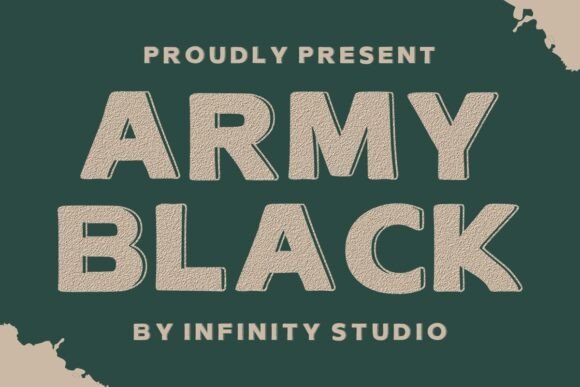
The Perfect Font for a Bold Statement: Army Black Font
Imagine you’re sitting in a crowded stadium, surrounded by cheering fans and the energy of the game is palpable. Suddenly, a giant screen behind the field flickers to life, displaying a bold, eye-catching headline that screams “IT’S GAME TIME!” – that’s the kind of impact you can create with the Army Black Font.
Army Black Font is a powerful display font that’s designed to make a statement. With its dynamic effect and unique charm, it’s perfect for anything from sporting events to Army posters, logos, and monogrammed designs. As a designer, you’re constantly on the lookout for the perfect font to elevate your projects – and Army Black Font is a valuable addition to your toolkit.
Army Black Font Key Features
- Font Family: Army Black is a sans-serif font family designed for military use.
- Unique Characteristics: Features a distinctive, rugged aesthetic with strong lines and geometric shapes, making it ideal for military and industrial applications.
- Legibility: Designed for clear readability in a variety of environments, including low-light conditions.
Army Black Font Review
Overall, I’d say that the Army Black Font is a decent choice for those who want a bold, edgy font for their design projects. Here are some pros and cons I’ve observed.
- Highly legible even at smaller font sizes
- Great for headlines and titles due to its dramatic appearance
- Works well in digital designs such as social media graphics and presentations
- Has a strong, consistent stroke width which makes it easy to read
- May be too bold for body text, making it difficult to read in large blocks of text
- Not ideal for print materials where a more subtle font is preferred
- Lacks personality and uniqueness compared to other bold fonts
The Army Black Font is a solid choice for designers who want a bold, attention-grabbing font for their projects. However, it may not be the best option for every design situation, particularly those that require subtlety and nuance. With some careful consideration of its limitations, it can be a valuable addition to any designer’s toolkit.
The Army Black Font is ideal for creating a bold and modern look in logos, headings, and titles. It pairs well with other sans-serif fonts and can be used in a variety of designs, from corporate branding to graphic novels.
Some common use cases include:
- Logo design
- Business card design
- Poster design
- Graphic novel illustration
Alternatives to Army Black Font
Helvetica Bold
Helvetica Bold is a sans-serif font that offers a clean and modern look. It is ideal for use in headings, titles, and short paragraphs where a strong, bold font is required. Compared to Army Black Font, Helvetica Bold has a more rounded and friendly feel, making it suitable for a wider range of applications.
Montserrat Bold
Montserrat Bold is a geometric sans-serif font that is highly legible and versatile. It is perfect for use in digital design, such as website headers, social media, and mobile apps. Montserrat Bold is more modern and sleek compared to Army Black Font, with a more condensed and urban feel.
Didot Bold
Didot Bold is a serif font that exudes elegance and sophistication. It is ideal for use in luxury branding, high-end magazines, and fine art. Compared to Army Black Font, Didot Bold has a more refined and classic feel, making it suitable for applications where a sense of luxury and refinement is desired.
Avenir Next Bold
Avenir Next Bold is a sans-serif font that offers a modern and sophisticated look. It is perfect for use in editorial design, corporate branding, and digital media. Avenir Next Bold is more versatile and adaptable compared to Army Black Font, with a range of weights and styles available.
Army Black Font Creative Project Ideas
Project 1: Military-Themed Wedding Invitations
Create a unique and memorable wedding invitation using Army Black Font. This font style is reminiscent of military typography and can add a touch of sophistication to your wedding stationery.